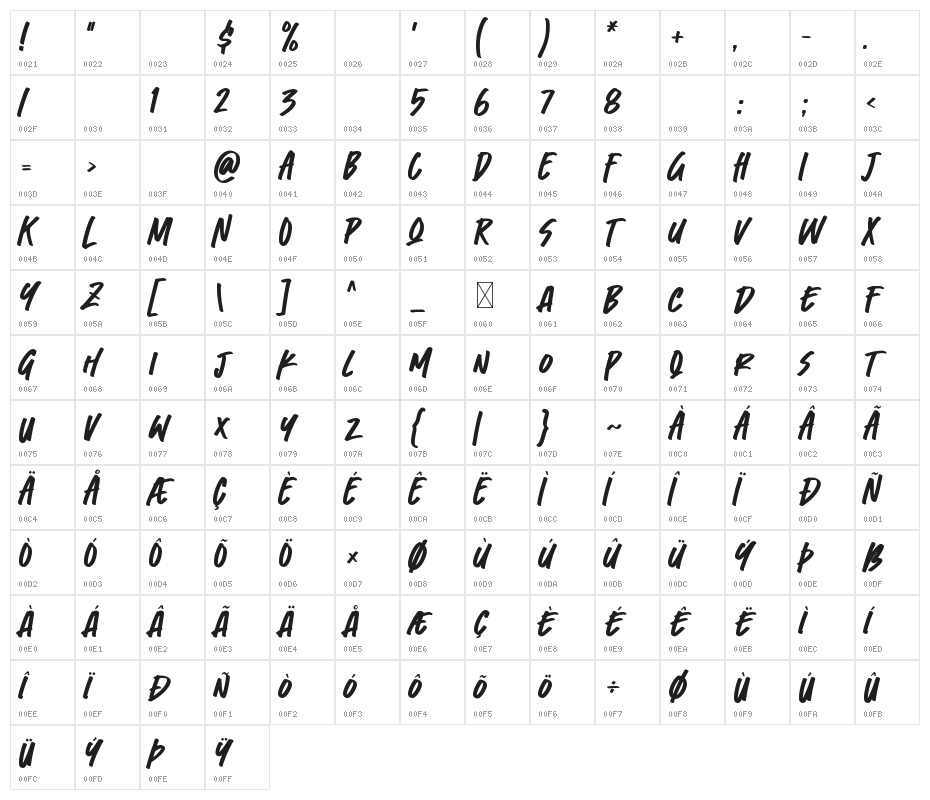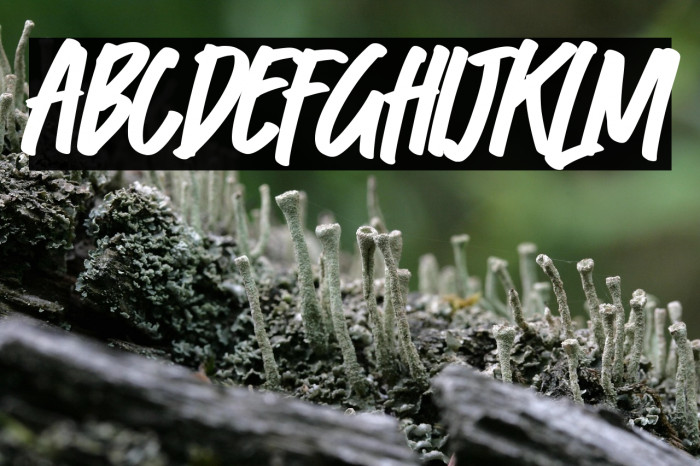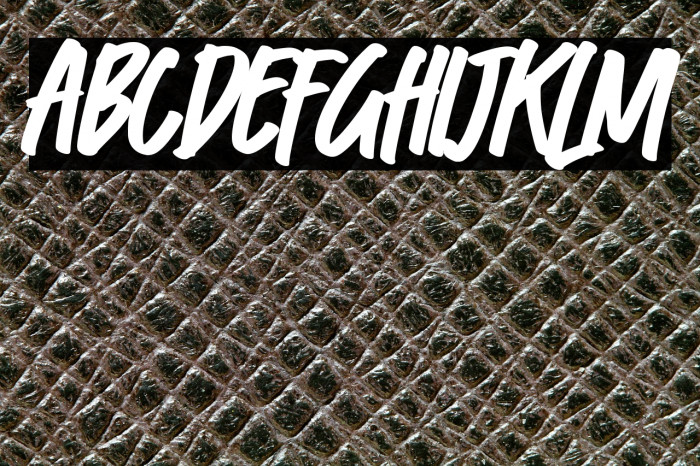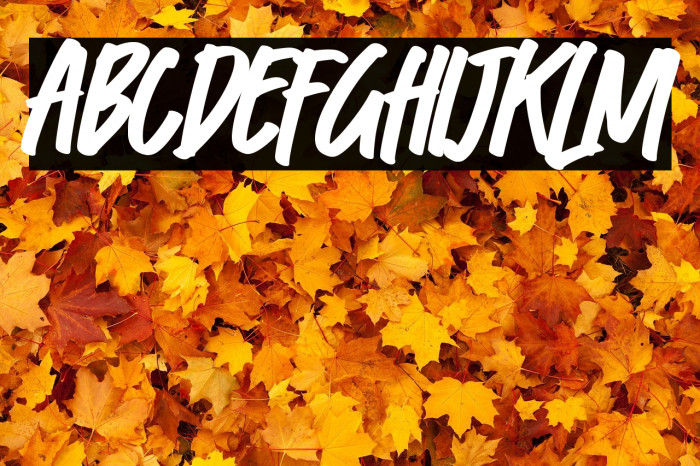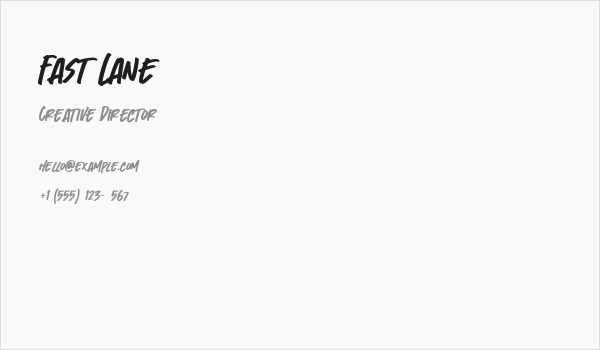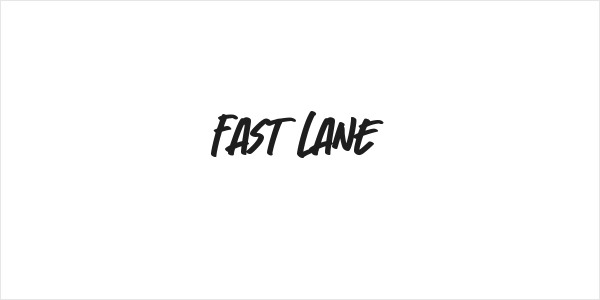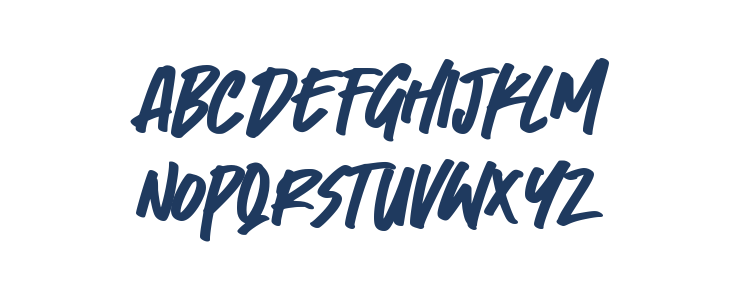
Fast Lane Font
Fast Lane Description
This font exhibits a bold and energetic handwritten style, characterized by thick, dynamic strokes and a slightly slanted orientation. The uppercase and lowercase letters are crafted with a sense of movement, giving an impression of speed and fluidity. The numbers and special characters maintain this lively aesthetic, making the font suitable for attention-grabbing designs. Its brush-like appearance suggests a casual yet assertive tone, ideal for projects that require a personal touch with a modern twist.
| Overall Style | Modern, Decorative |
| Proposed Projects | Ideal for branding, posters, social media graphics, and any project that requires a bold, personal touch. |